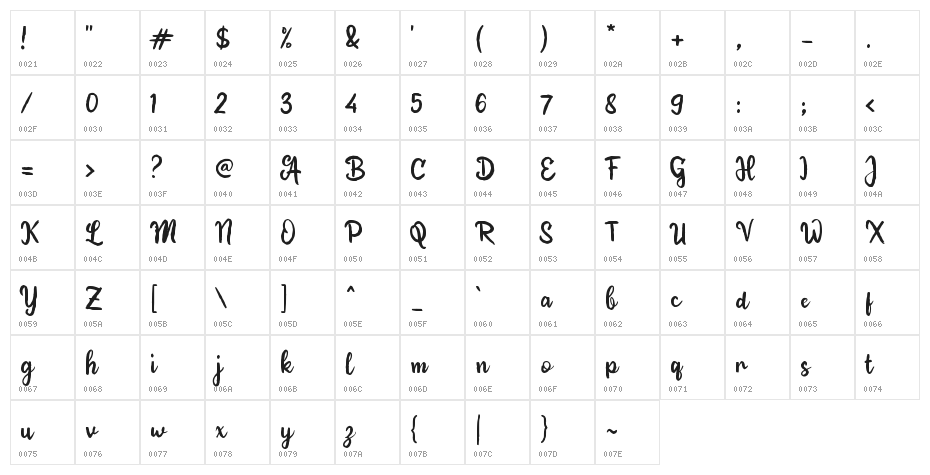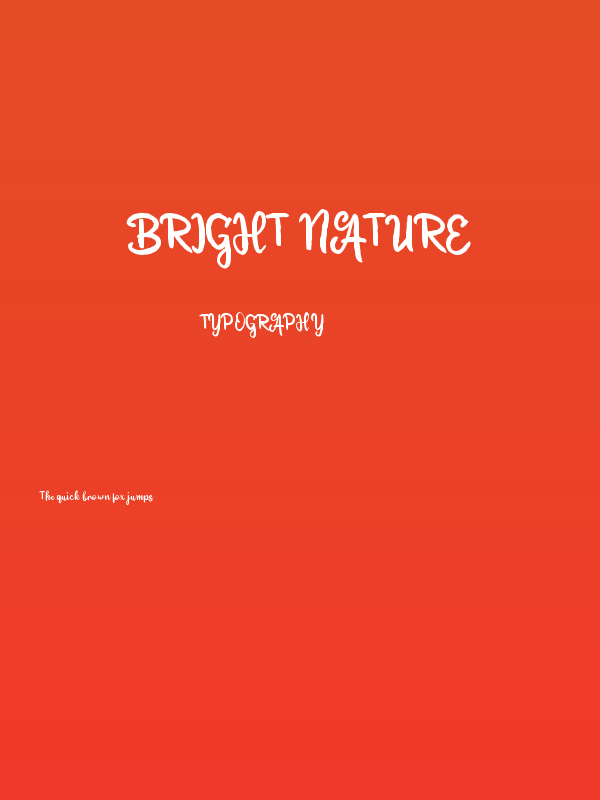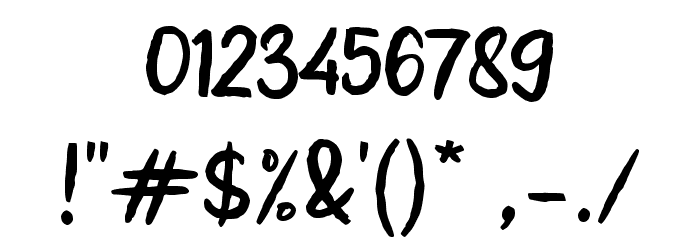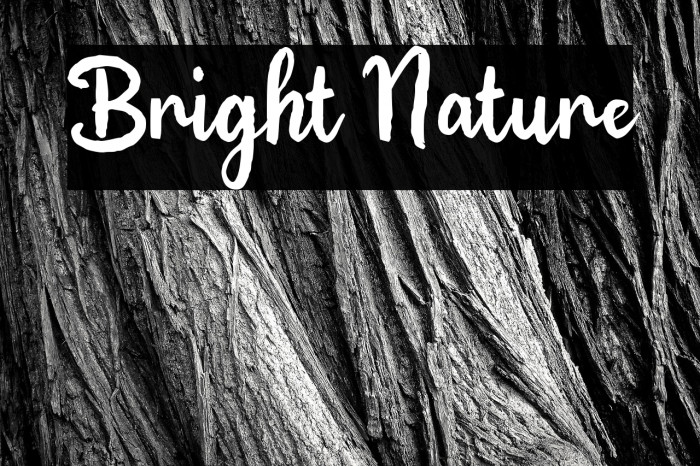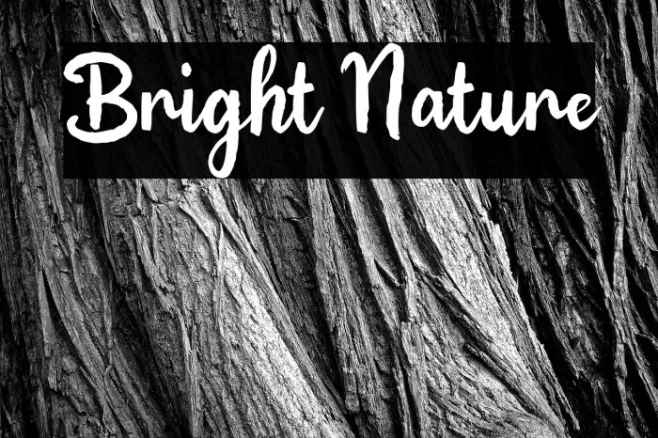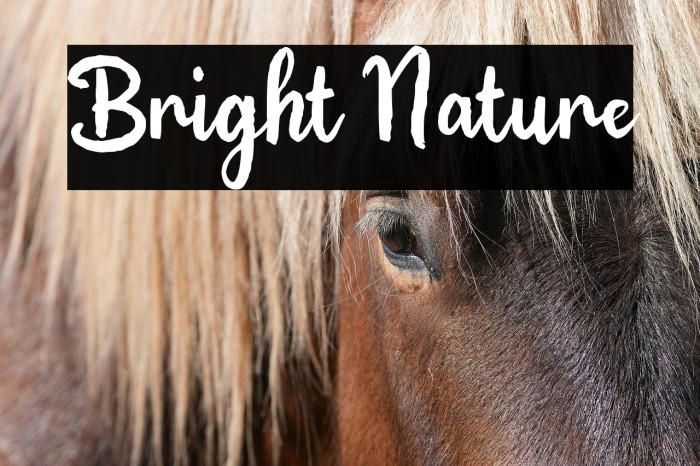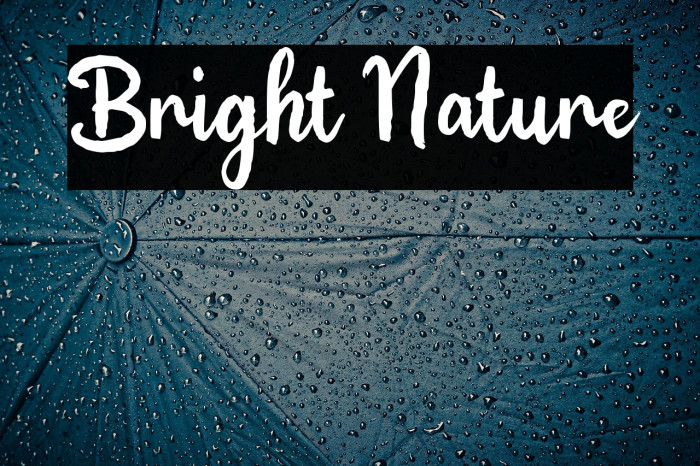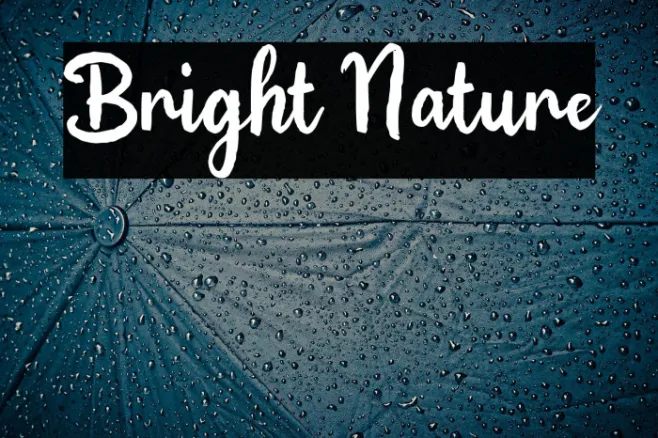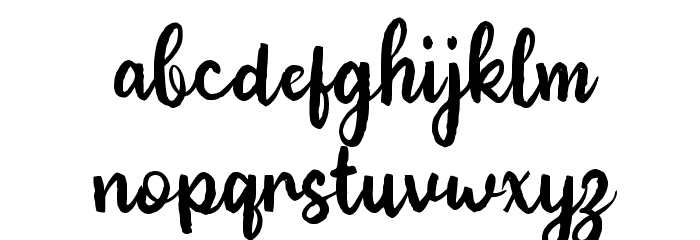
Bright Nature Font
Bright Nature Description
This font features a lively and expressive script style, characterized by its flowing and interconnected letterforms. The uppercase letters exhibit a bold and dynamic presence, with a slight slant that adds to the overall energetic feel. The lowercase letters maintain a consistent rhythm, enhancing readability while preserving the font's playful nature. Numbers and special characters are crafted with the same attention to detail, ensuring uniformity across all glyphs. The strokes are moderately thick, providing a balanced contrast that highlights the font's artistic flair. This font is ideal for projects that require a touch of elegance and creativity.